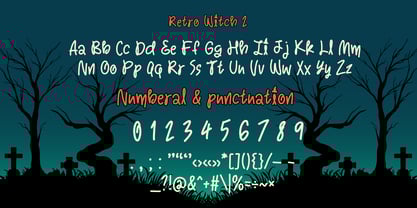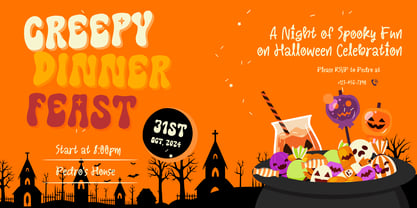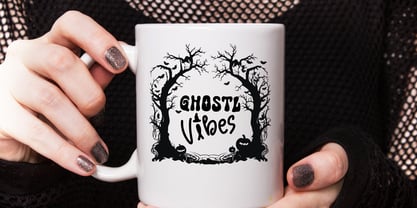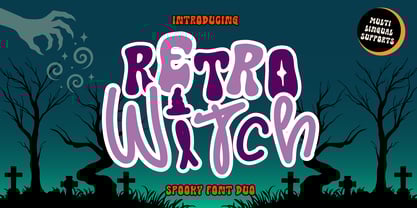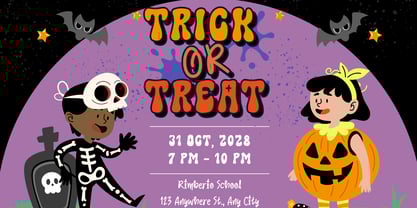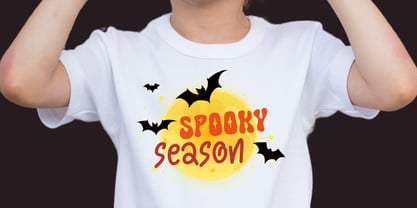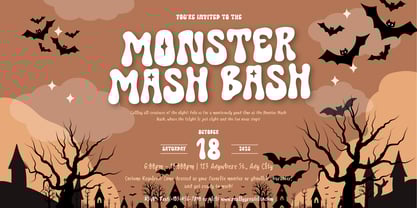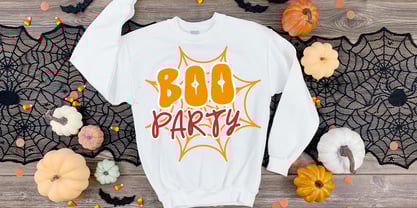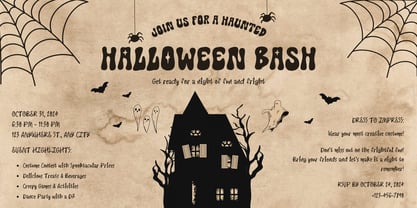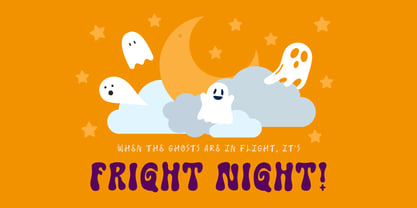
Retro Witch
by Brown Cupple Typeface
The Retro Witch Font Family was designed by Nattha​ Potchanad​ and published by Brown Cupple Typeface. Retro Witch contains 2 styles and family package options.
Retro Witch is a Halloween retro duo font, combining a display and handwritten typeface that exudes a cool and groovy aesthetic. Ideal for all your hippie-inspired designs, It embodies playfulness and authenticity and is the perfect choice for all your favorite projects, or even for blog posts, logos, branding, ads, invitations, greeting cards, planners, photo albums, decorations, and much more. Add it to any of your designs, and enjoy the results!